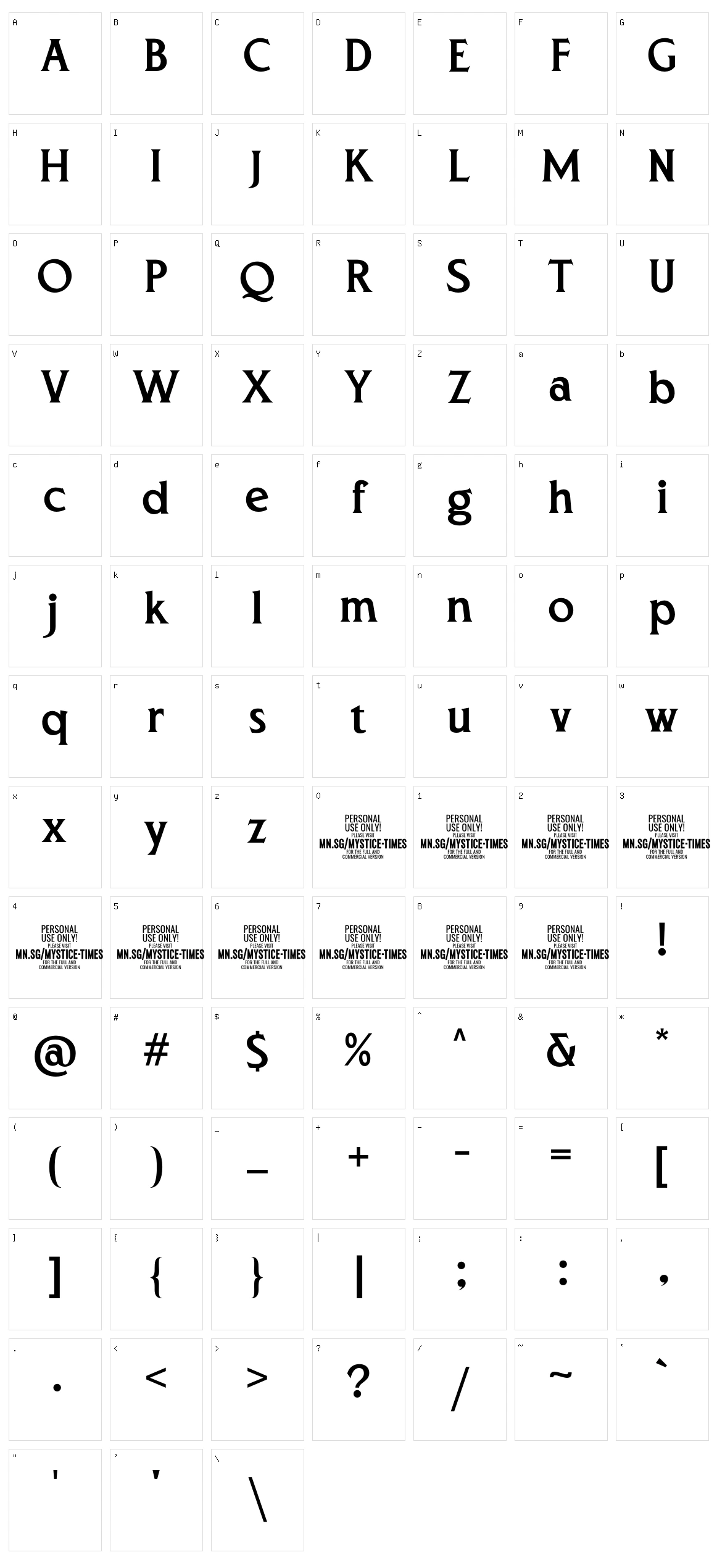
Dive into a realm where retro meets mystique with the Mystice Times font.
Channeling the enchanting ambiance of 80s thriller movies, this serif typeface echoes tales of mystery wrapped in professionalism.
Its characters, though rooted in the cinematic charm of yesteryears, are tinged with an unpredictable, slightly eccentric flair. Yet, there's an undeniable allure in its design - a suave nod to 70s funk, blending seamlessly with 80s charisma.
Perfect for those seeking a touch of nostalgia, Mystice Times stands out as a unique blend of the eerie and elegant, lending any project a timeless, captivating vibe.